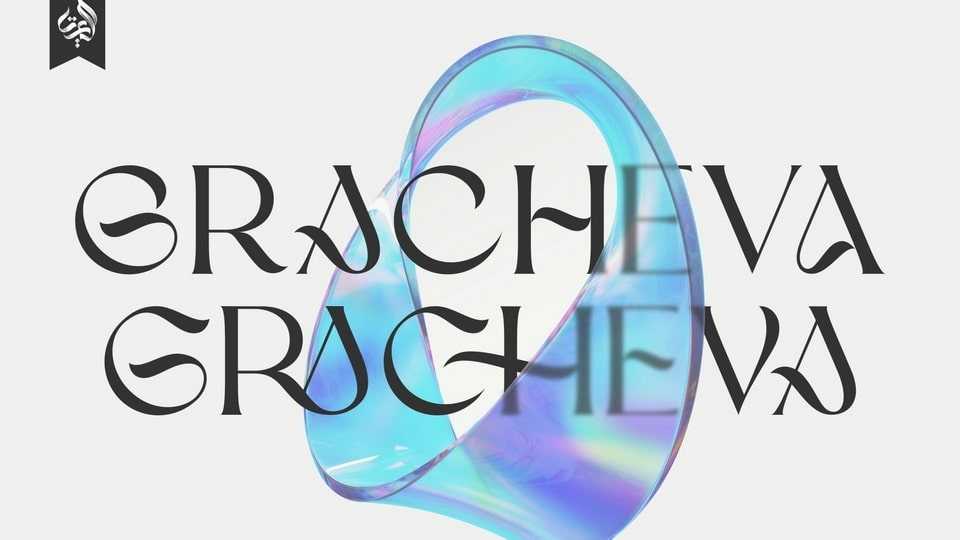
Download Gracheva font, a premium display typeface that conveys a charming elegance but powerful like a graceful wild horse that can be applied to many areas of design.
Designer: Aluyeah Studio